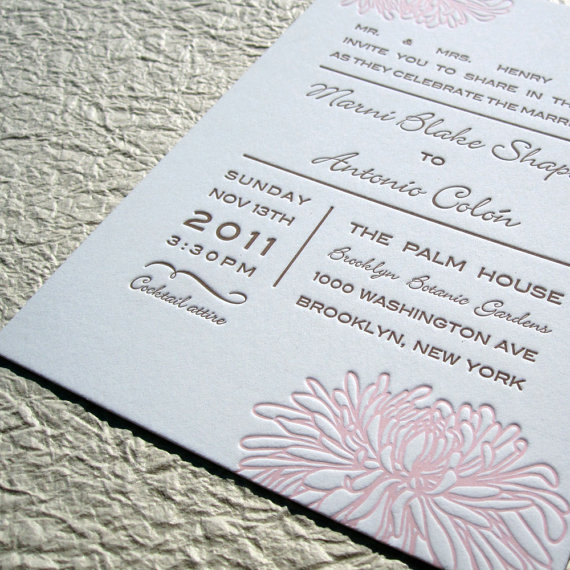
Not positive on the other one, but you'd probably get a similar look with copperplate gothic or engravers gothic.
I've looked all over the place, but can't seem to find one close enough to the script font. Hopefully someone can figure it out!
First off, I'd just like to say that this is my very first post! I just got engaged on Christmas to my wonderful high school sweetheart & we are planning for a June 2013 wedding. We can't wait! I'd also like to say how much of a godsend this site has been for me. I had so many questions and planning this wedding (even though it seems so far away) was starting to overwhelm me, but weddingbee.com has answered all of my questions! Now let me get to my question: can anyone tell me what fonts these are on these invites? More specifically the script font. I am absolutely obsessed with these invitations, but they are WAY out of my price range since they are letterpress. I want to try and re-create them myself in Adobe Illustrator and change the flower to possibly a peony or a rose. Thanks everyone! And I look forward to posting along the way until the big day :)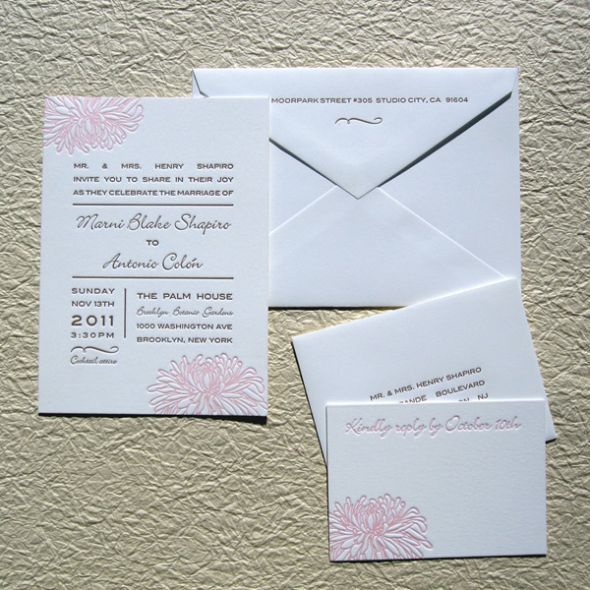
Here's more of an up-close picture so you can see the font a little better: